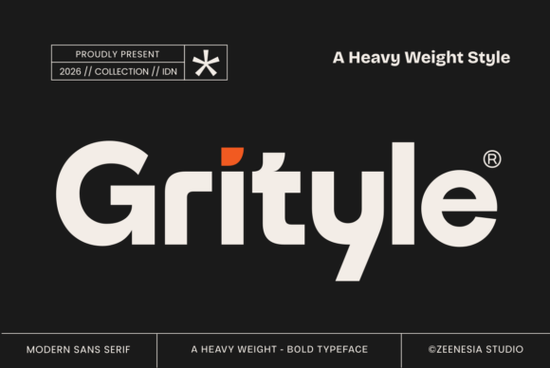
If you need a bold, heavy sans serif that makes an immediate statement, Grityle is worth a close look. This typeface is built with thick strokes and clean geometric shapes, so it commands attention without feeling try-hard. Whether you're designing a poster, a brand logo, or a social media header, Grityle delivers that confident, modern look that says “we mean business.”
What makes Grityle different from other bold sans serif fonts?
Plenty of bold fonts exist, but Grityle balances weight with readability. The letterforms are simple and minimal, but they have a slight edge like a subtle diagonal cut or a squared-off curve that stops them from being boring. It’s not just a blocky uppercase set; the lowercase characters are just as sturdy, making it work for short paragraphs as well as all-caps headlines. Designers often use strong fonts to create hierarchy, and Grityle does that naturally.
Is Grityle only for headlines, or can it work for body text?
Because of its heavy weight, Grityle shines brightest in headlines, titles, and display use. That said, if you keep the text short and the size reasonably large, it can work for subheadings or short callouts. For long reading, you’d want a lighter companion. But for impact? This font is built for it. Try it on packaging, merchandise, or even a book cover where you need instant recognition.
What fonts pair well with Grityle?
One of the best ways to make Grityle stand out is to contrast it with a lighter or more decorative font. For example, Blackroad (another bold sans serif with a rough edge) can create a cohesive but varied look if you use one for body and the other for accent. Or try the Sunlight font its thin, curved strokes offer a beautiful contrast to Grityle’s blocky forms. For a complete set of bold options, the Massive Geometric Bundle includes several complementary typefaces that share that modern, heavy aesthetic.
How can print-on-demand sellers and small businesses use Grityle?
If you sell T-shirts, mugs, or posters, Grityle is a strong choice for short, punchy phrases. The clean lines keep your design readable even at a distance. For small business owners creating marketing materials, this font works well for:
- Logo text – especially if you want a modern, industrial feel
- Sale banners and signs – bold enough to read from across a room
- Product packaging – minimal yet memorable
- Digital ads and thumbnails – pops on social feeds
Because Grityle is all caps or mixed case, you can adjust the letter spacing to make it feel even more confident. A slightly tighter tracking works for a compact logo, while looser spacing creates an elegant, modern vibe.
Can crafters and hobbyists use Grityle too?
Absolutely. If you make digital scrapbooks, invitations, or handmade signs, Grityle’s bold look adds a contemporary touch. Use it as a title on a greeting card, or cut the letters for a vinyl project. The thick stems make it easy to work with physically no tiny parts to worry about. And because it’s a clean sans serif, it’s perfect for layering over patterns or photos.
Practical checklist before using Grityle in your next project
- Test the weight – try it at different sizes to see where it reads best.
- Choose a light companion font for body text (like Sunlight or a simple serif).
- Adjust letter spacing – a little negative tracking can improve headline impact.
- Pair with neutral or bold colors – Grityle loves contrast.
Try Grityle in a mockup first – drop it into a logo or poster template to see how it commands attention. For many designers, this font becomes the go-to when they need something simple yet powerful.